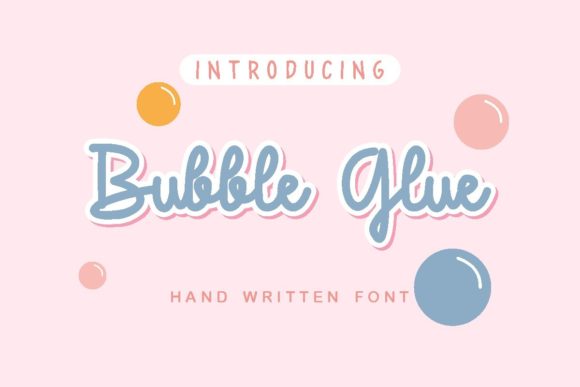
Step into the enchanting world of Bubble Glue Font, a script font family that exudes both charm and elegance. Inspired by the timeless art of calligraphy, this stunning handwritten font is like a breath of fresh air, ready to elevate your design projects to new heights.
With its graceful curves and a touch of playfulness, Bubble Glue Font is a versatile masterpiece suitable for an array of creative endeavors. Whether you're working on branding, crafting captivating headings, designing wedding invitations, or simply seeking a unique touch for your projects, this font has got you covered.
Immerse yourself in the beauty of Bubble Glue Font, a font that flows effortlessly like a river, adding a touch of sophistication and individuality to your designs. Embrace the charm of its handwritten strokes, and let your creativity soar to new horizons.